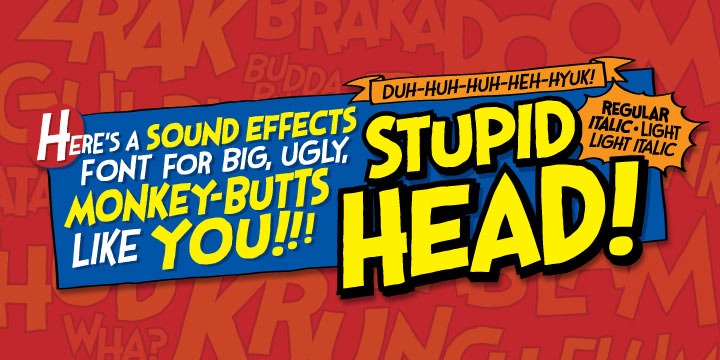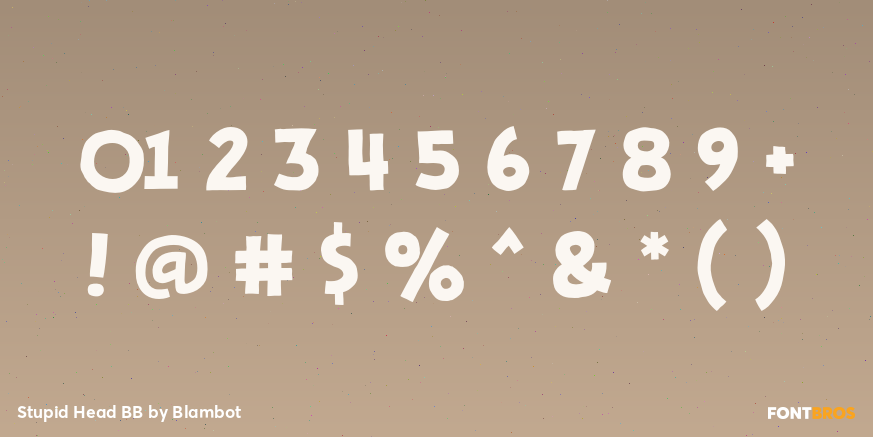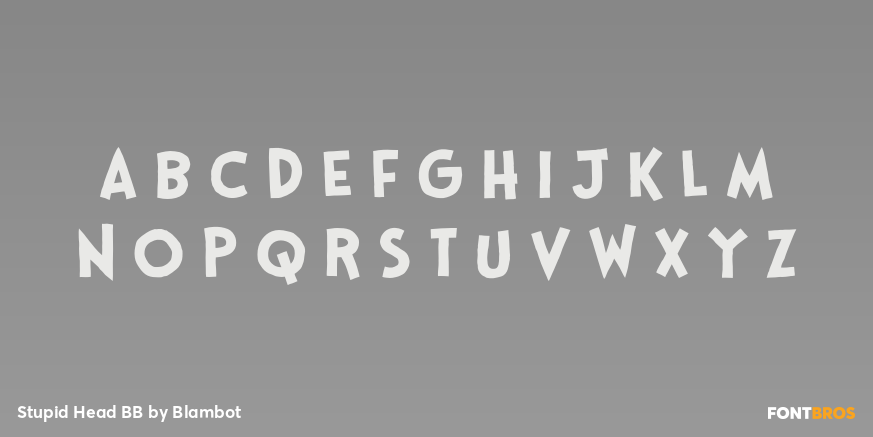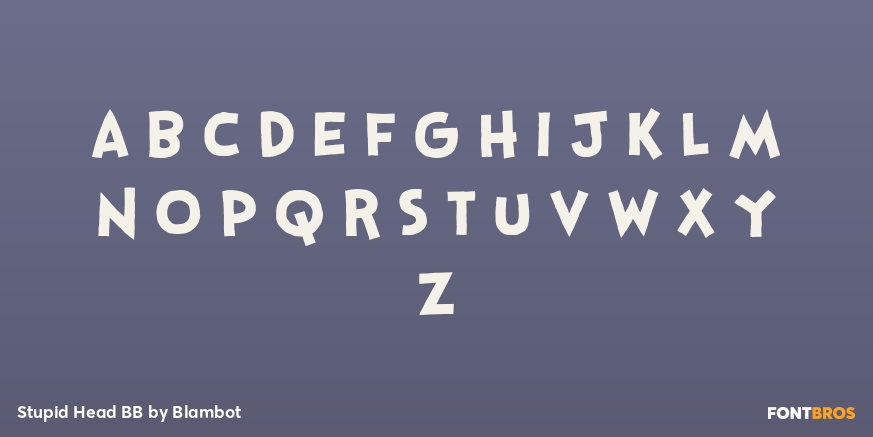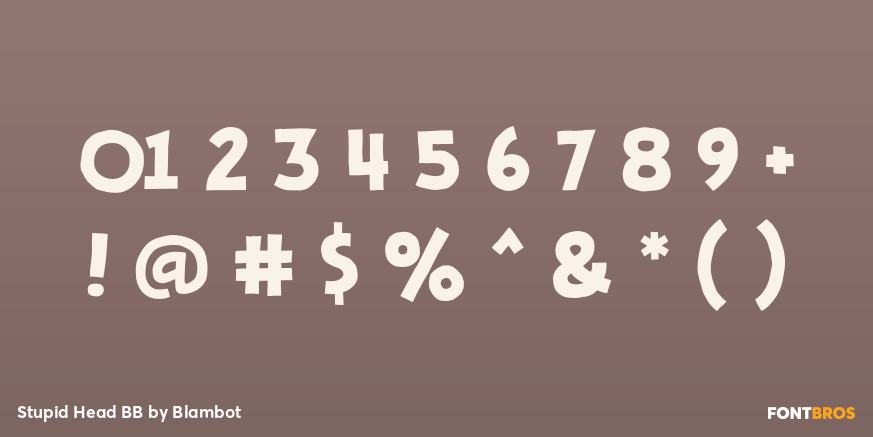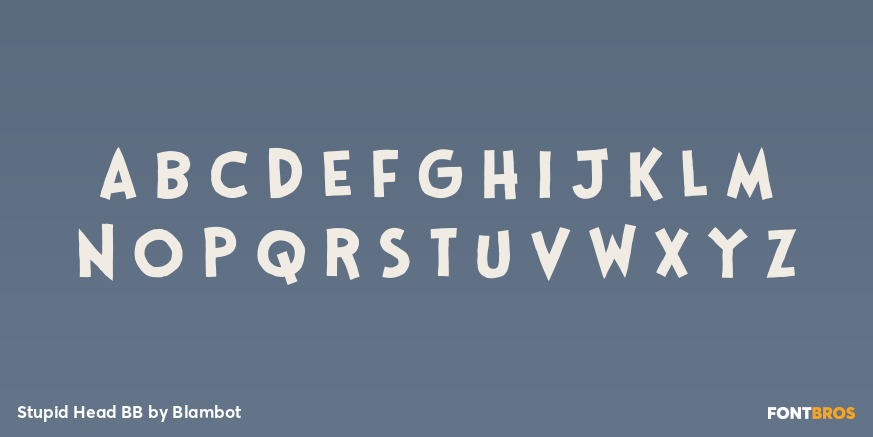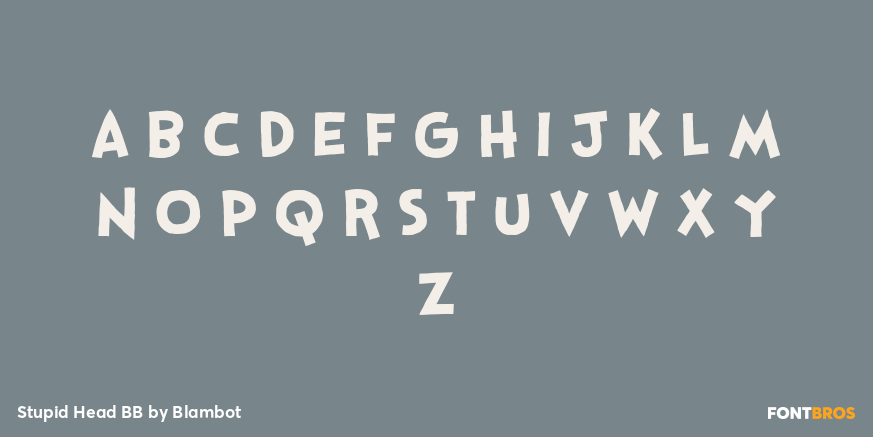
Stupid Head BB
Font Family by Blambot
Buy NowSTUPID HEAD BB is a comic book sound effects font family with an irregular, hand-drawn outline for a natural, 'sketchy? look. Comes with Regular, Italic, Light, and Light Italic. Lots of European characters also included.